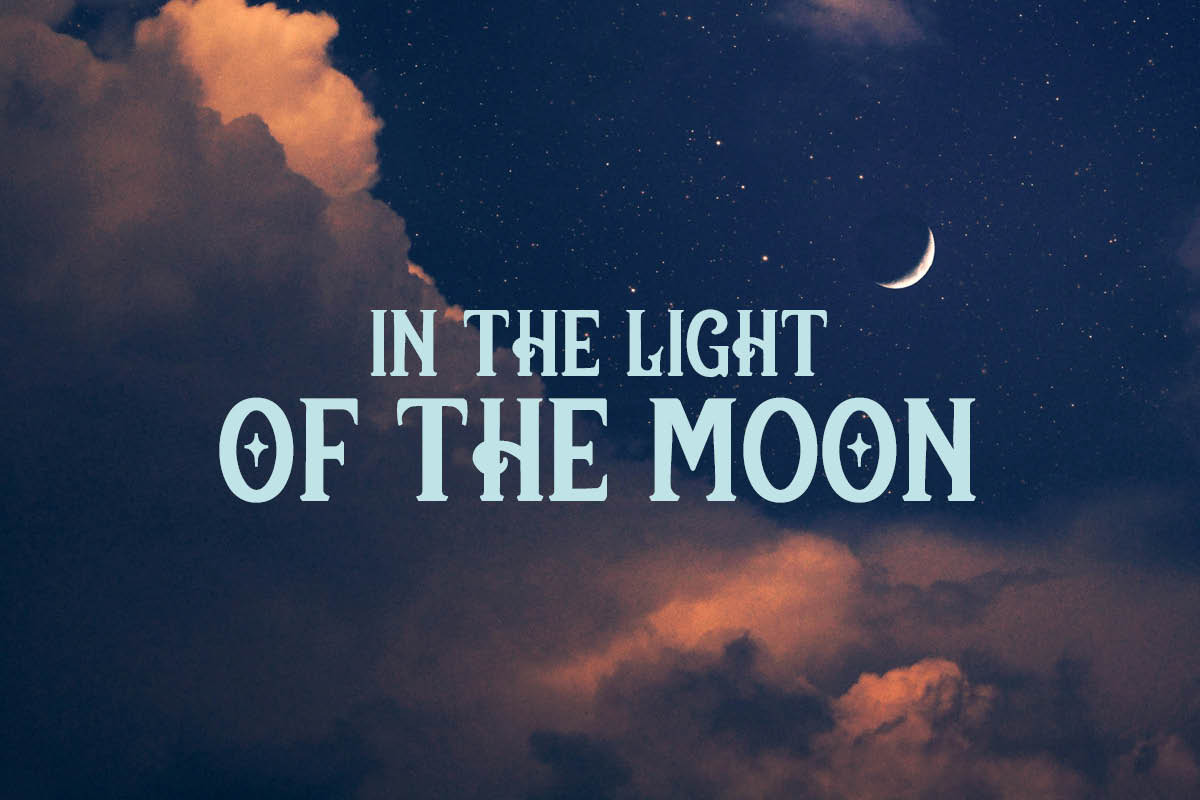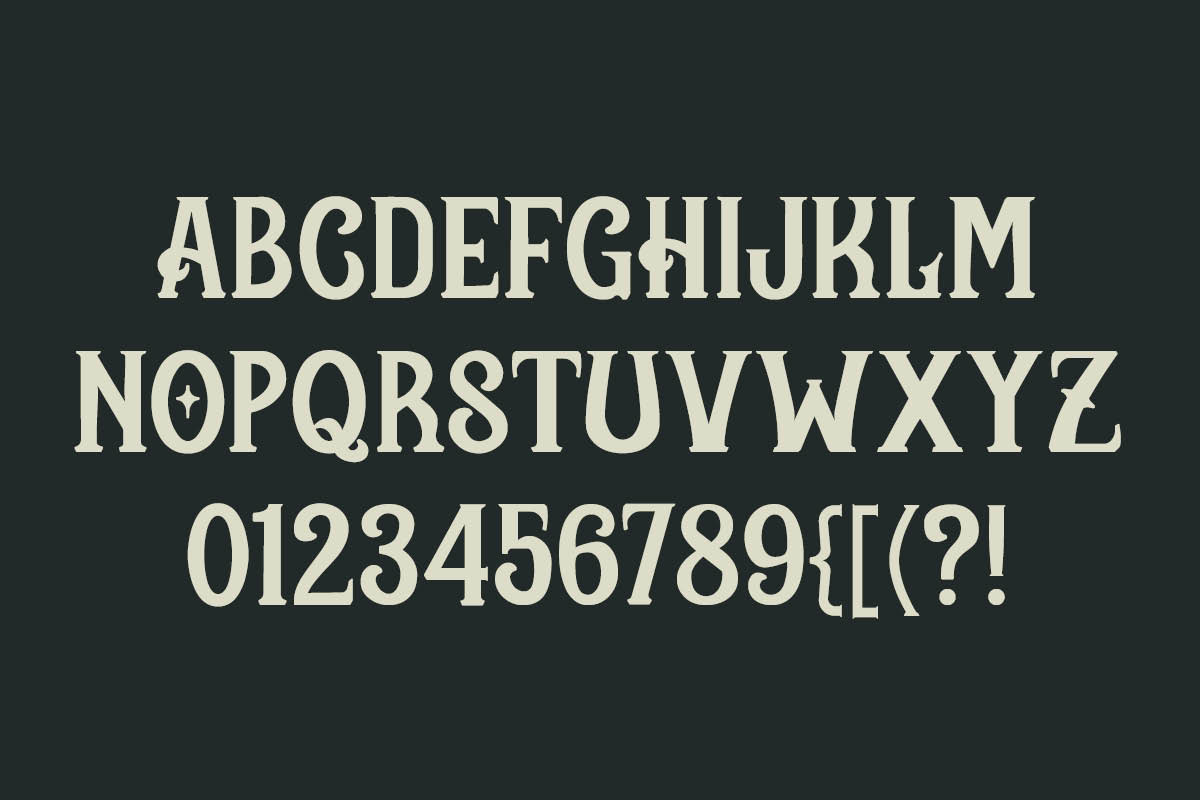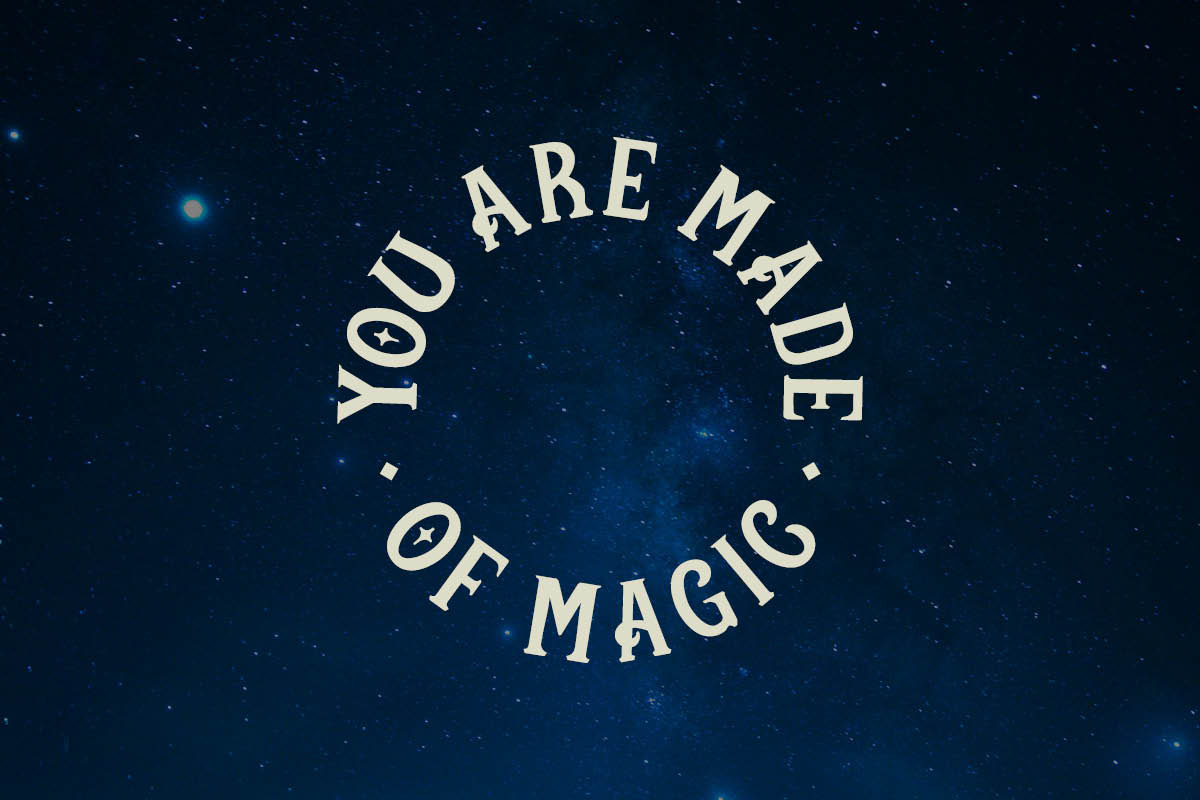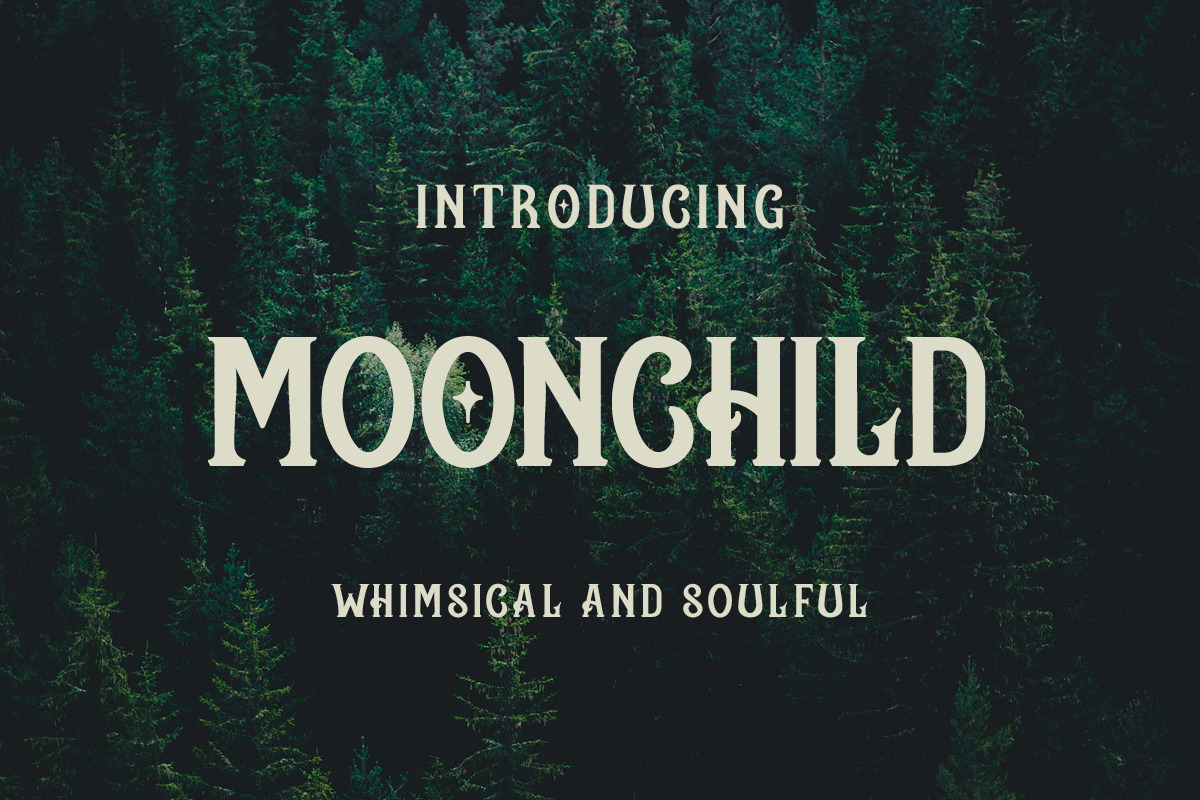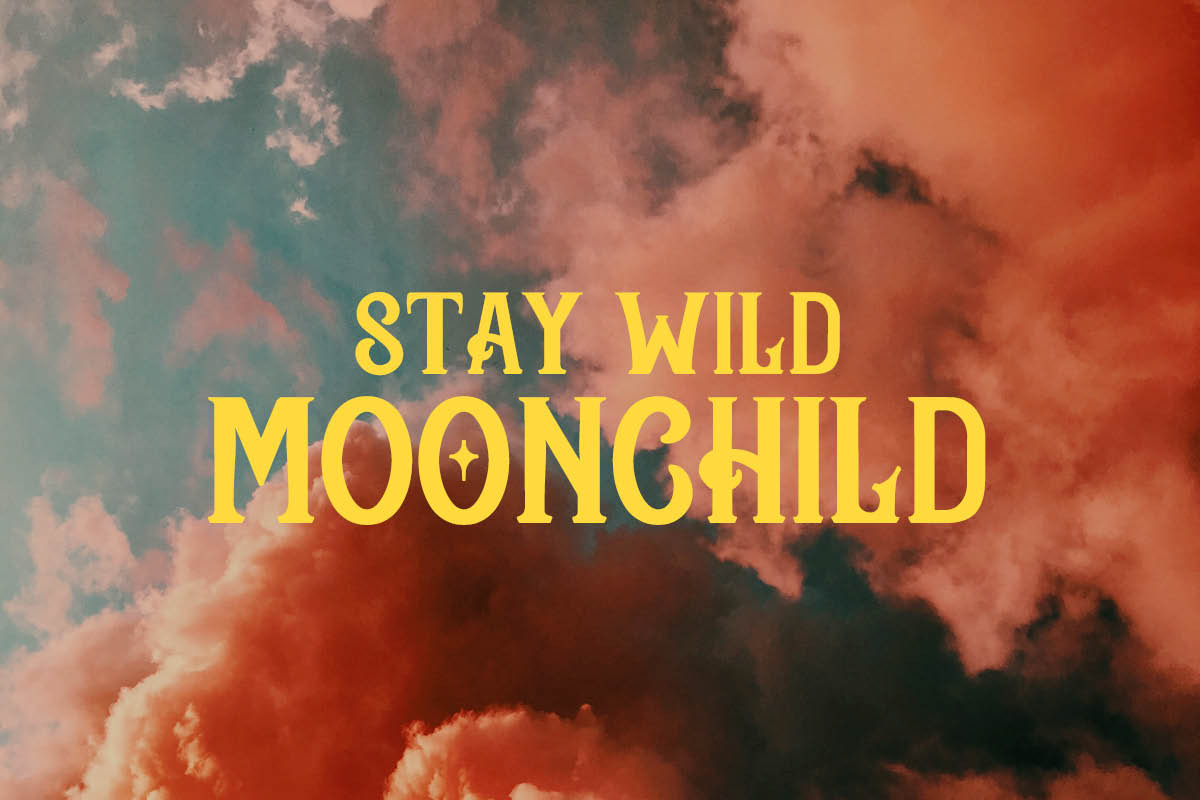
Moonchild | A Celestial Display Font
Moonchild is a dreamy, vintage-inspired serif typeface designed for creatives, small business owners, and illustrators looking to add a soft, mystical touch to their work.
With its playful curves, hand-crafted feel, and starry cutout details, Moonchild is perfect for:
Whether you're crafting a magical product line or creating artwork that needs just the right amount of whimsy, Moonchild was made to support the softest, boldest parts of your vision.